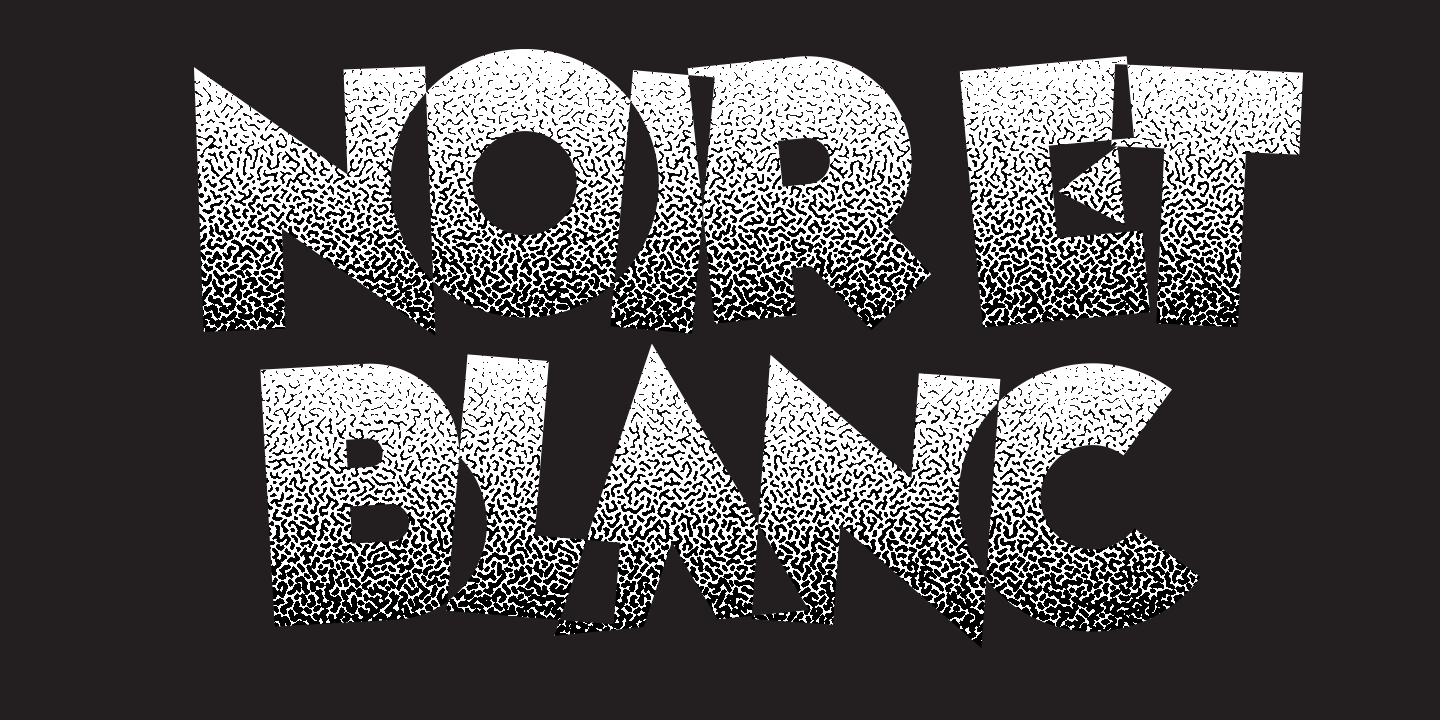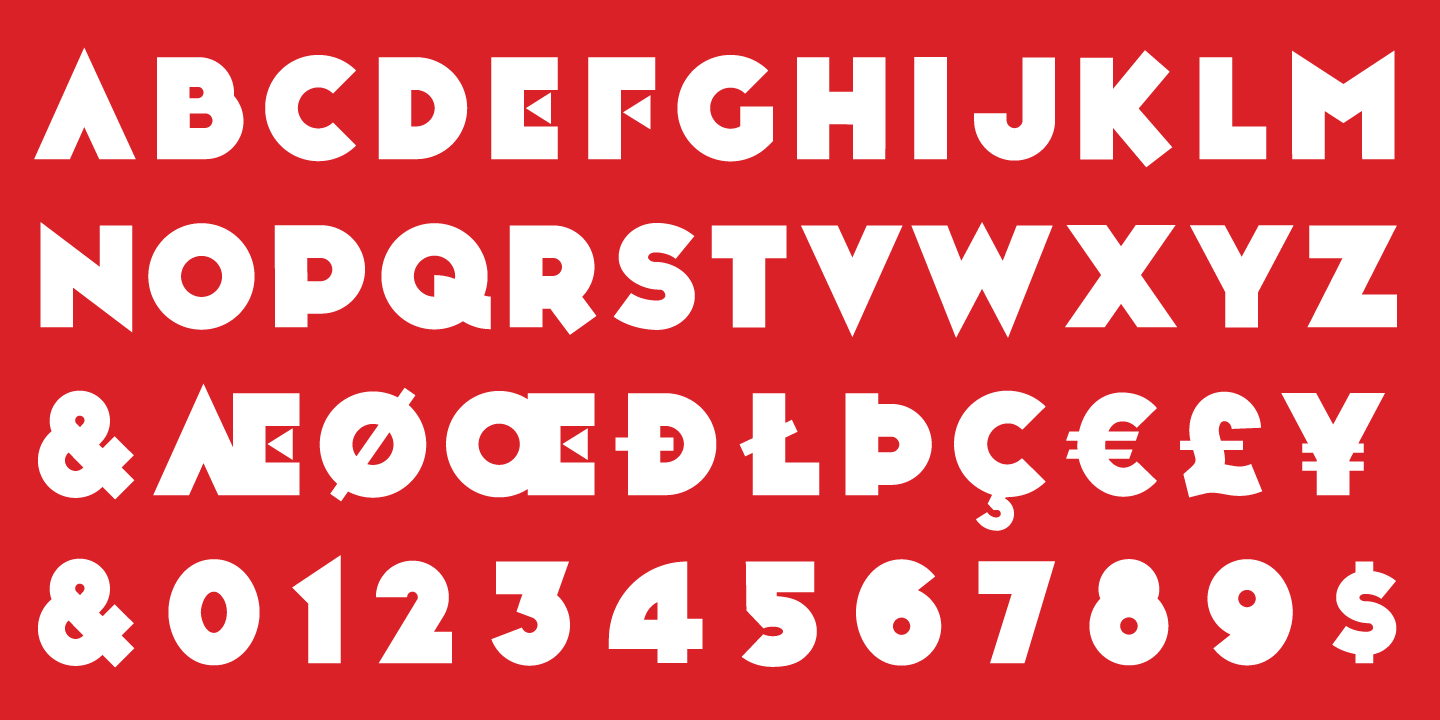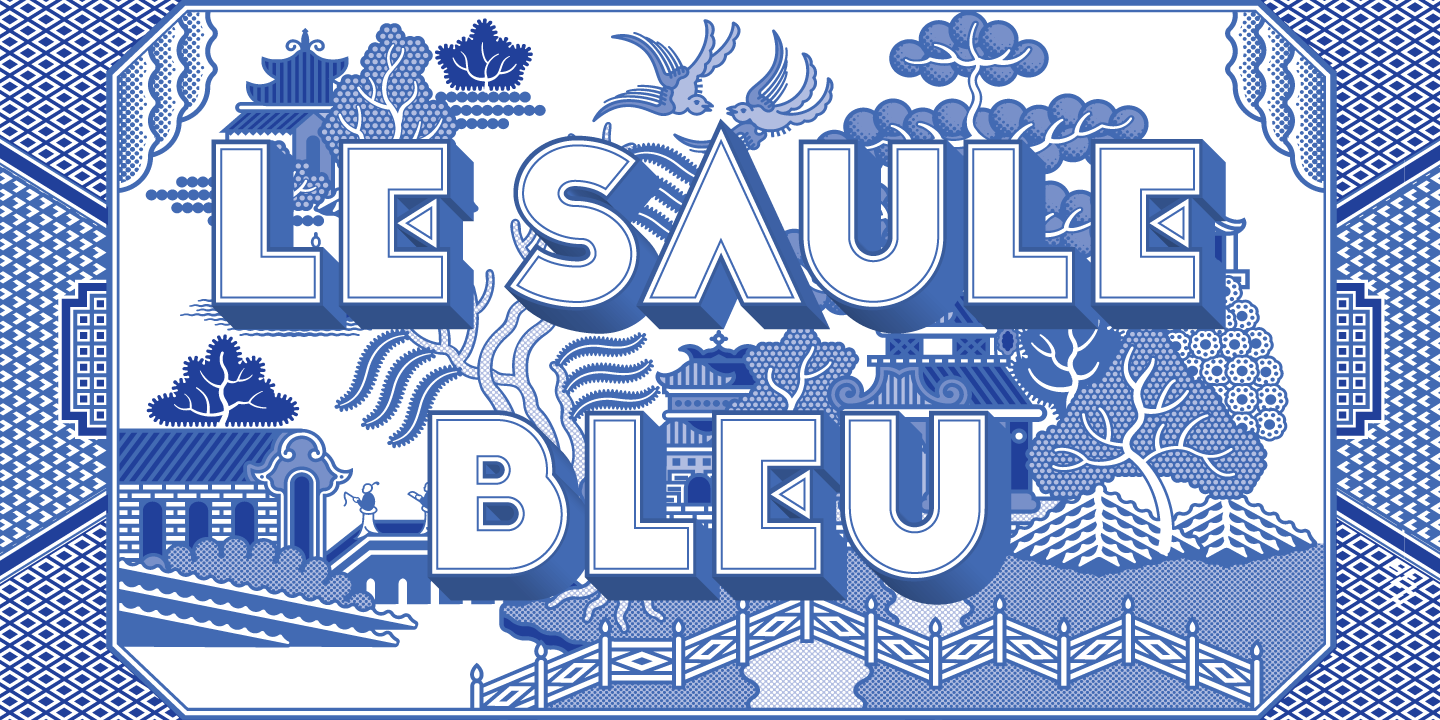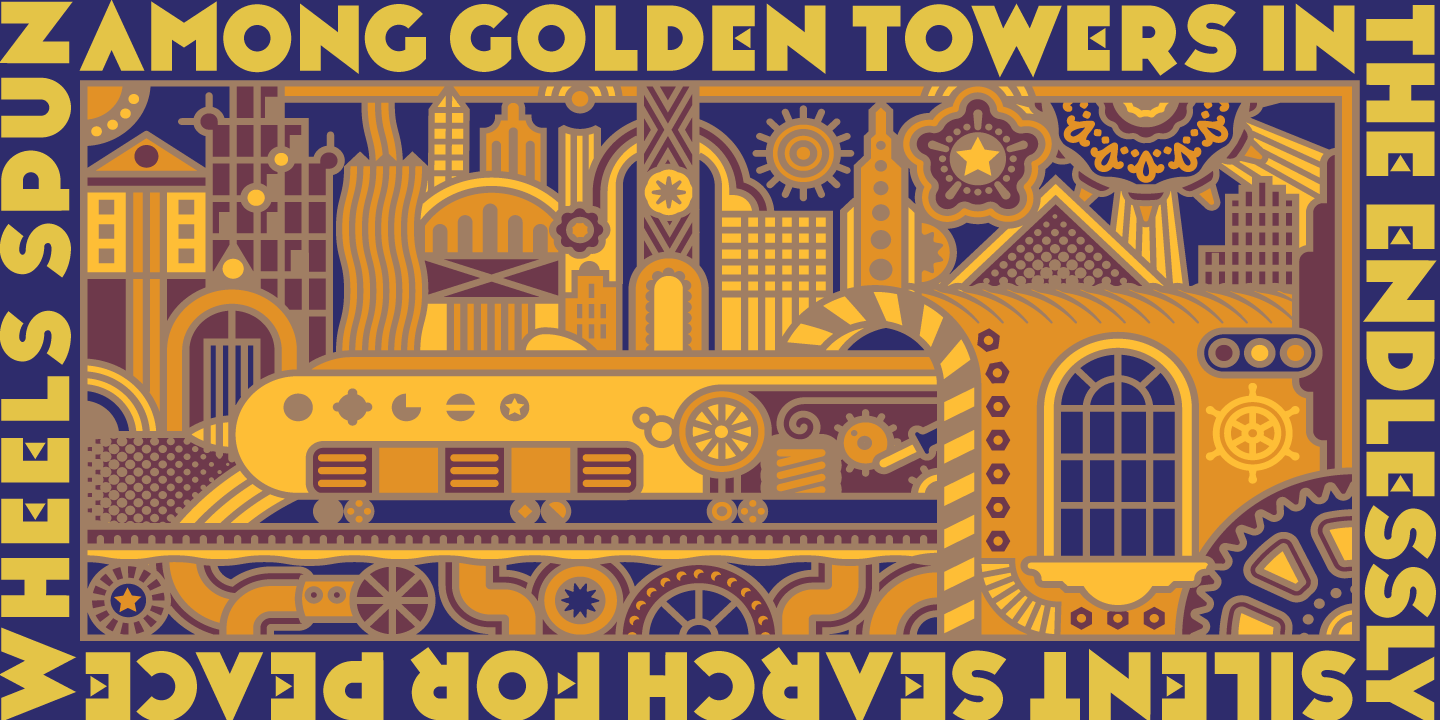
Noir et Blanc
Noir et Blanc began as a proposed logo for a new Broadway production of Moulin Rouge and ended up as a challenge to find how bold a stroke weight could still be beautifully legible. Now that it is complete, we hope it will have the chance to become noir et blanc et rouge partout.